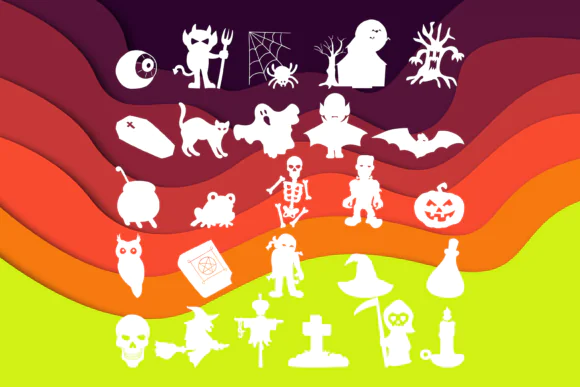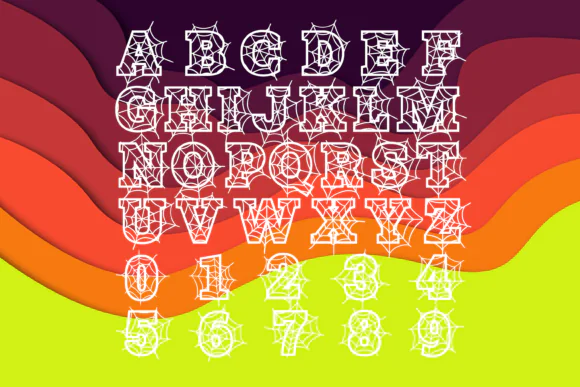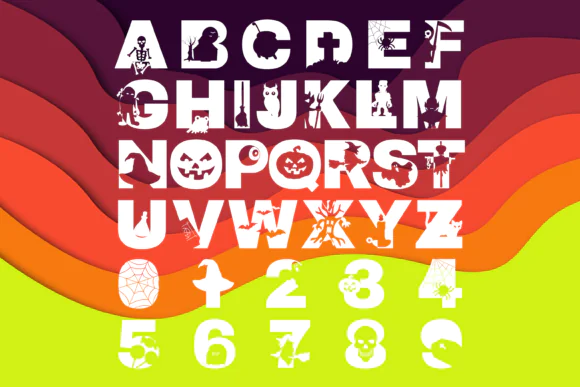
Create fun, playful, and spooky seasonal designs with Scary Halloween Trio Font, a cool Halloween font bundle that includes sans serif, serif, and dingbat styles. This trio gives you more creative flexibility, making it useful for Halloween artwork, children’s designs, cartoon-themed projects, party materials, games, crafts, and fun digital products.
Scary Halloween Trio Font is perfect for designers, crafters, small business owners, and digital creators who want a versatile Halloween font set for different types of creative work. The sans serif and serif styles are great for readable titles, headings, and decorative text, while the dingbat elements can help add extra Halloween-themed details to your designs.
This font trio works beautifully for Halloween party invitations, kids’ game graphics, cartoon designs, greeting cards, stickers, t-shirts, mugs, posters, banners, printable wall art, social media graphics, and seasonal branding projects.
Scary Halloween Trio Font is a great choice for creating cute, fun, and spooky Halloween projects with multiple font styles in one useful bundle.